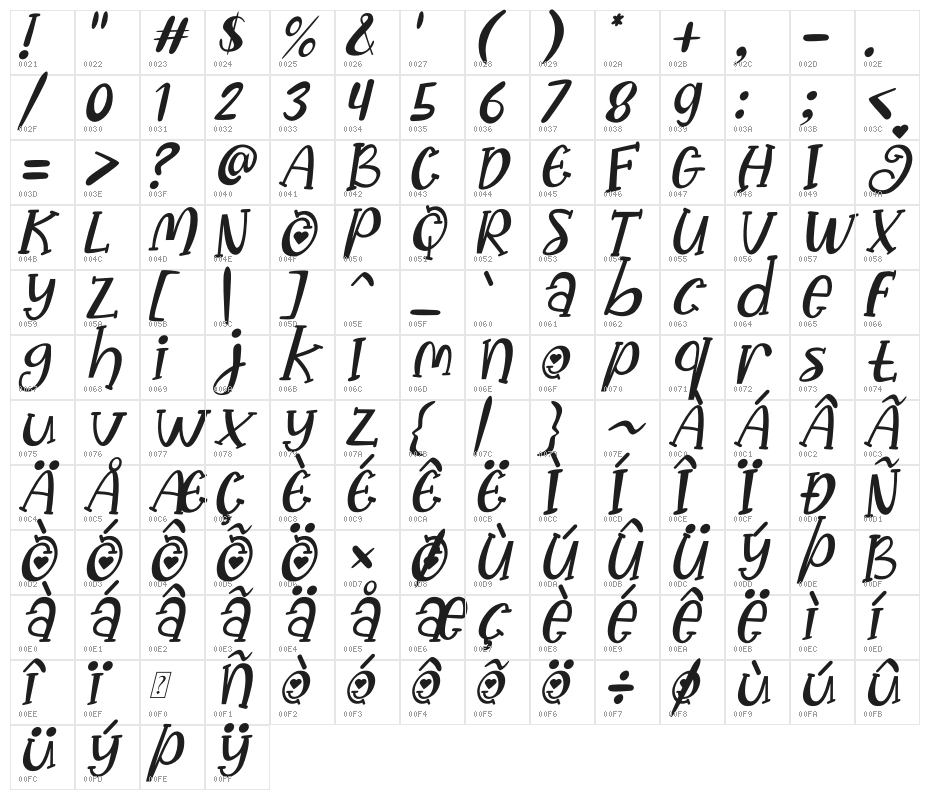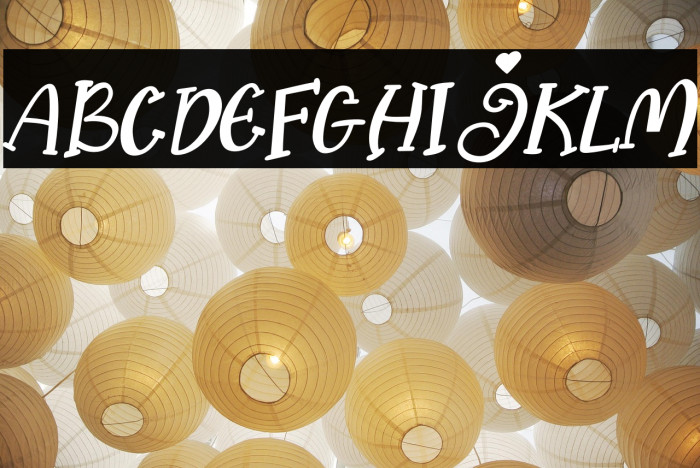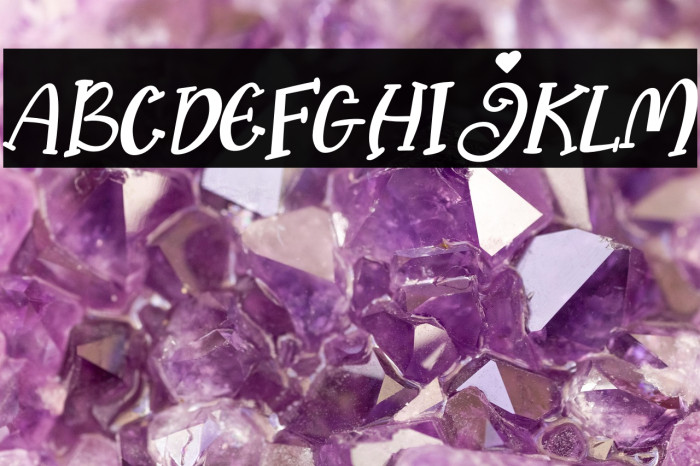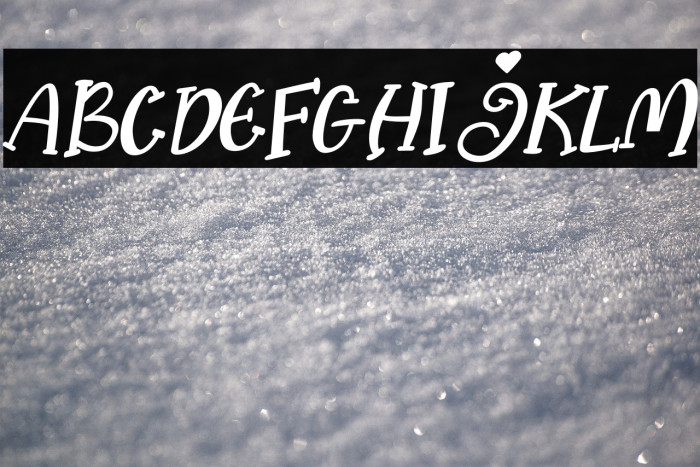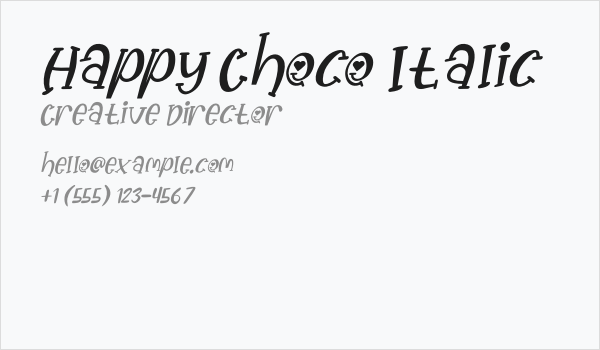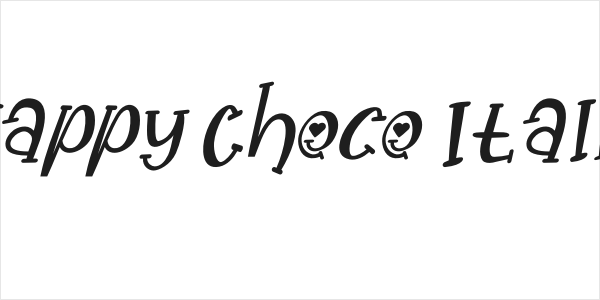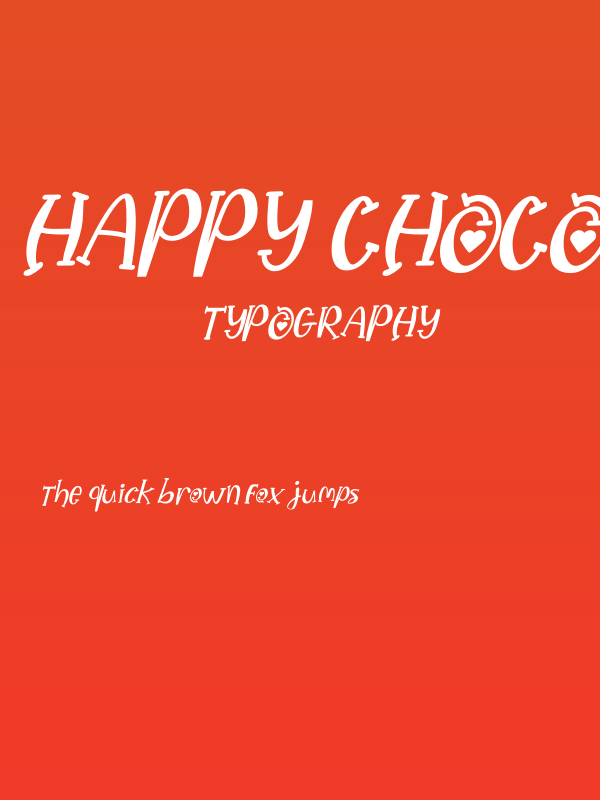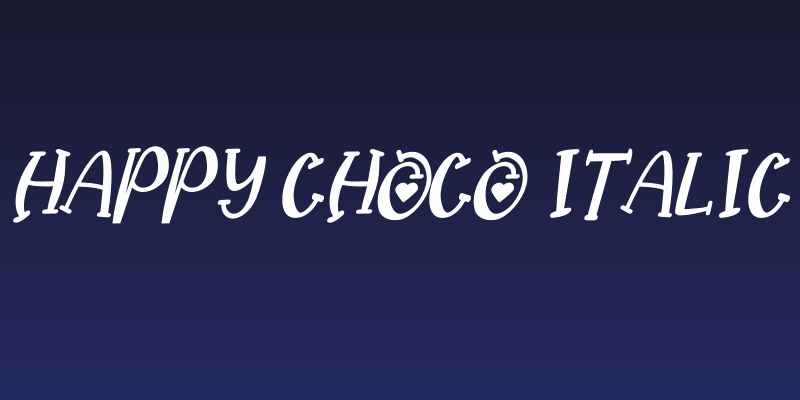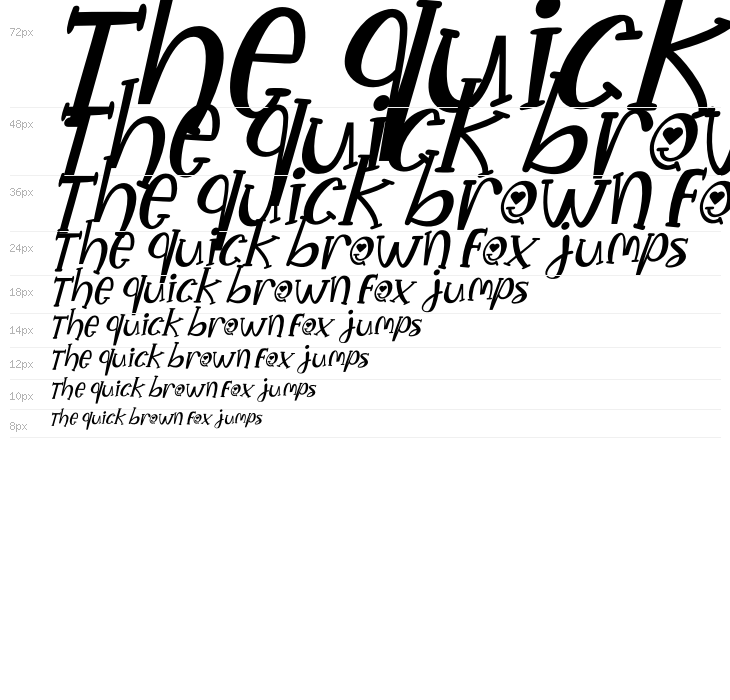
Happy Choco Italic Font
Happy Choco Italic Description
This playful and whimsical font features a lively, handwritten style with a distinct italic slant. The characters are adorned with unique embellishments, such as hearts and curls, adding a touch of charm and personality. The uppercase letters are bold and dynamic, while the lowercase letters maintain a consistent flow, creating a harmonious balance. The numerals are equally expressive, with a slightly exaggerated flair that complements the overall design. Special characters are creatively integrated, enhancing the font's playful nature. The font's energetic and friendly appearance makes it ideal for projects that require a fun and engaging aesthetic.
| Proposed Projects | Ideal for greeting cards, children's books, playful branding, and creative invitations. |